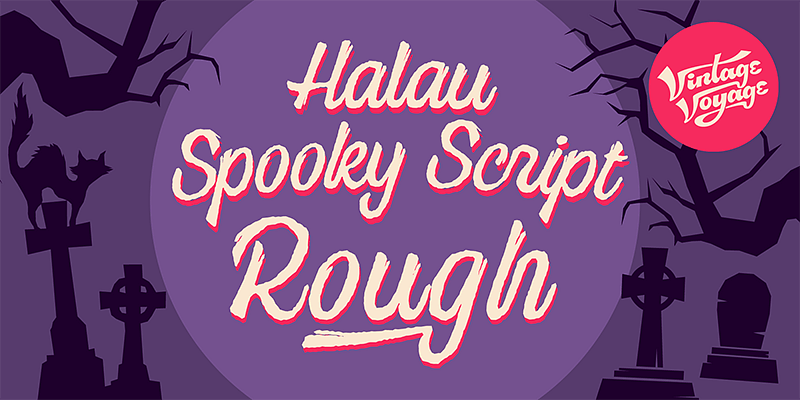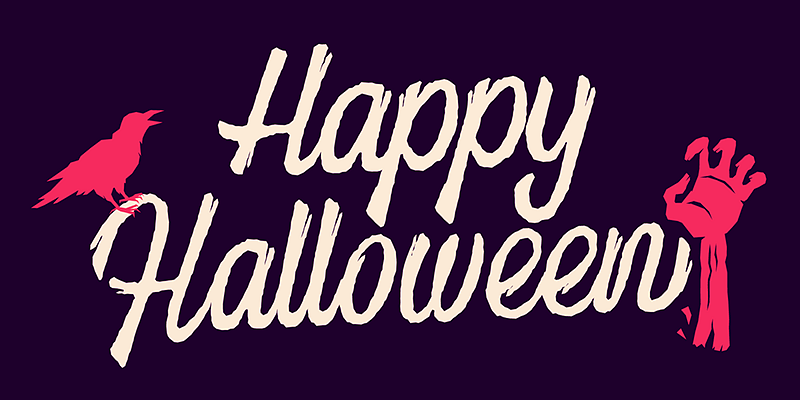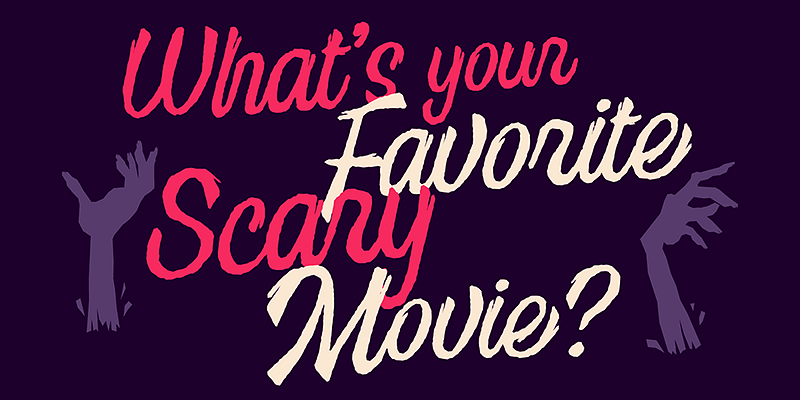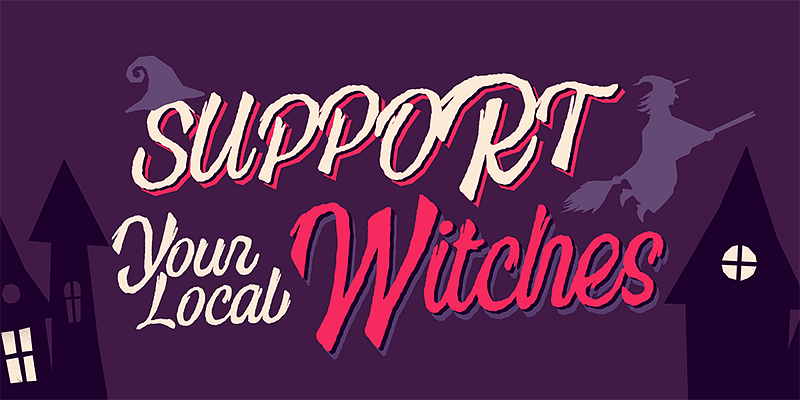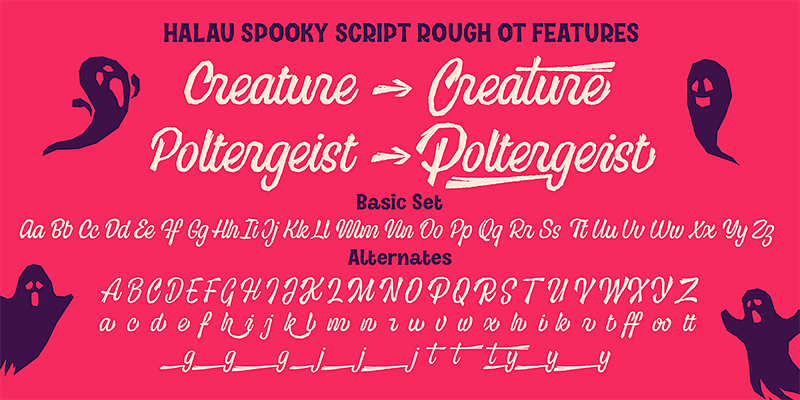
Vintage Voyage Design’s Halau Spooky Script is a creepily enchanting typeface for Halloween or other ghoulishly delightful events. It is meant for headlines, but because of its open shapes, it also works well at smaller subhead sizes! The various alternates within stylistic sets will completely satisfy the most sophisticated font gourmet, too. Choose Halau Spooky Script for party invitations, food packaging, theater posters, and anywhere else you might want something a little devilishly dark.